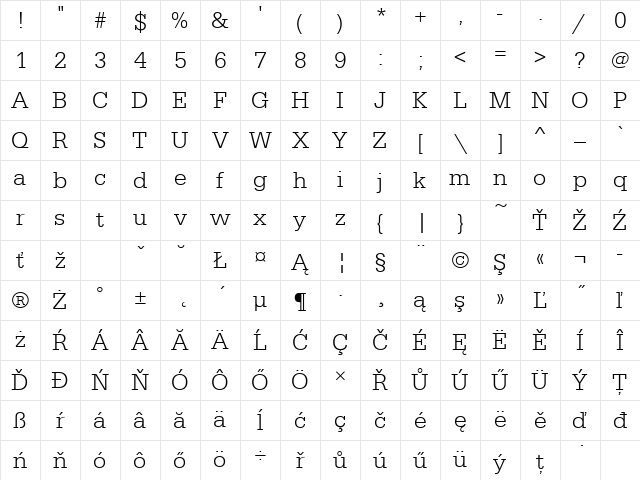
SerifaDEELig Regular
Complete SerifaDEELig Regular glyph index. Displaying only characters natively supported by SerifaDEELig Regular font.
Design Context for SerifaDEELig
SerifaDEELig carries the refined structure of traditional serif typography, with bracketed terminals and considered proportions that communicate credibility and craft.